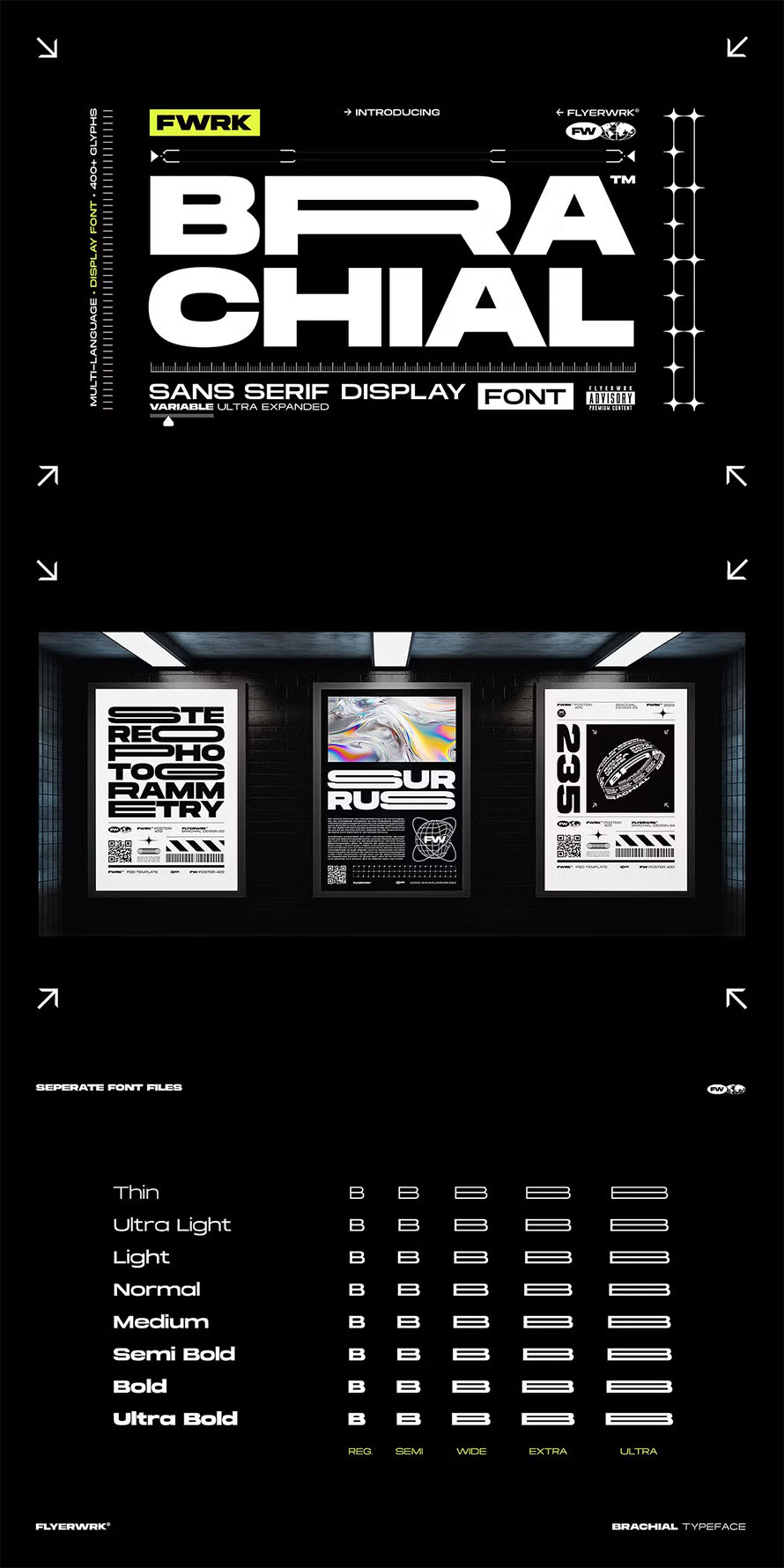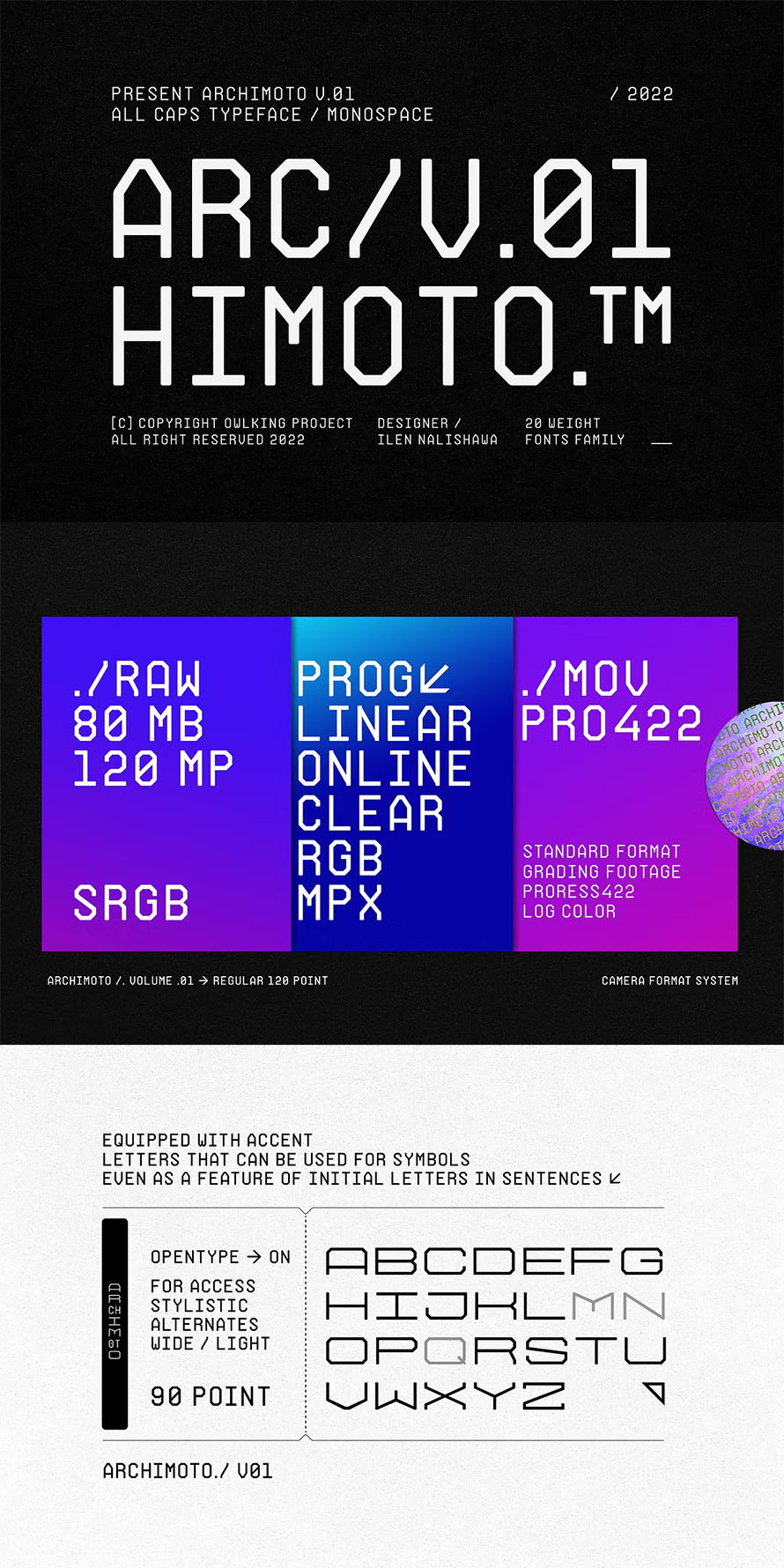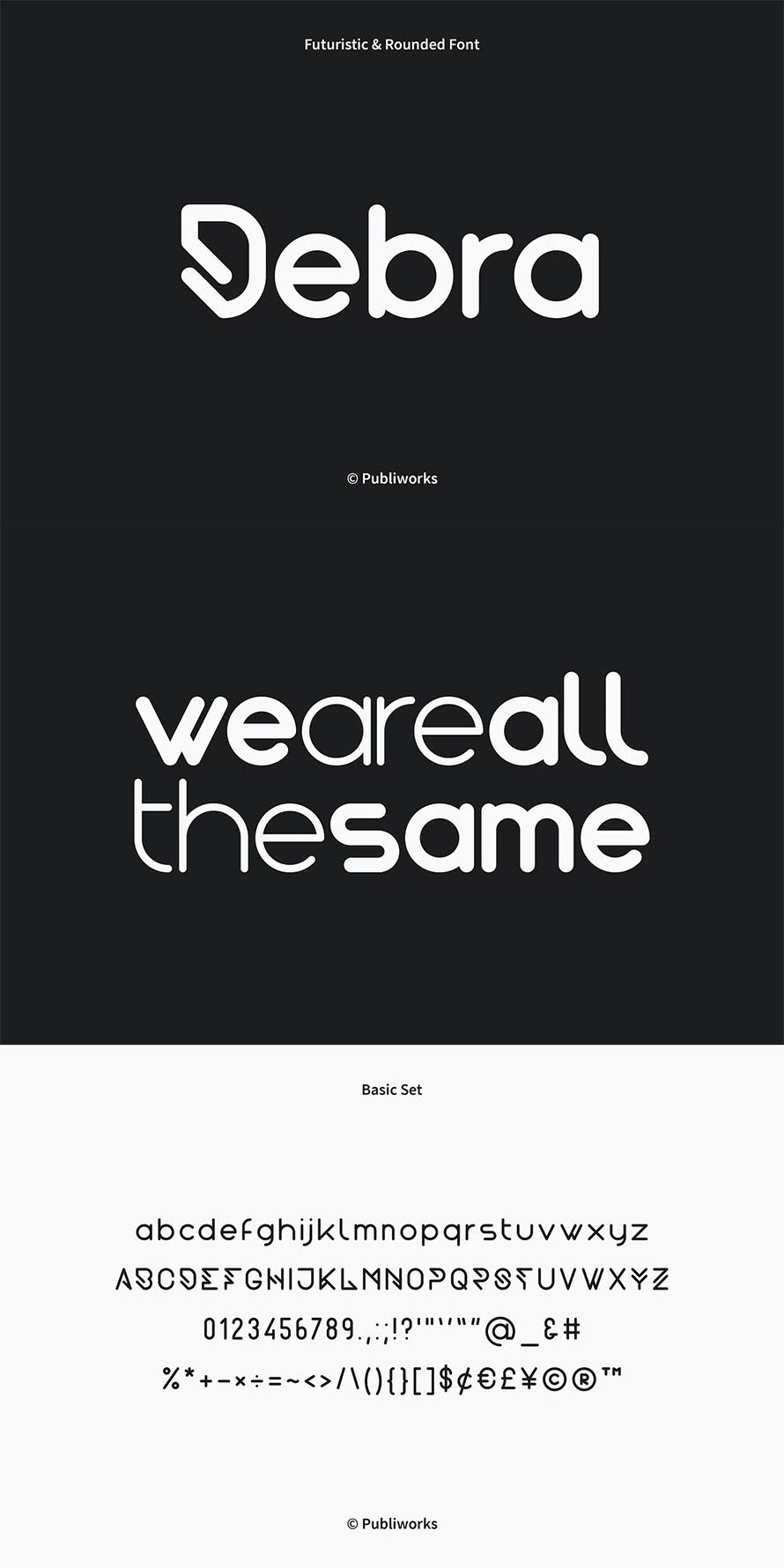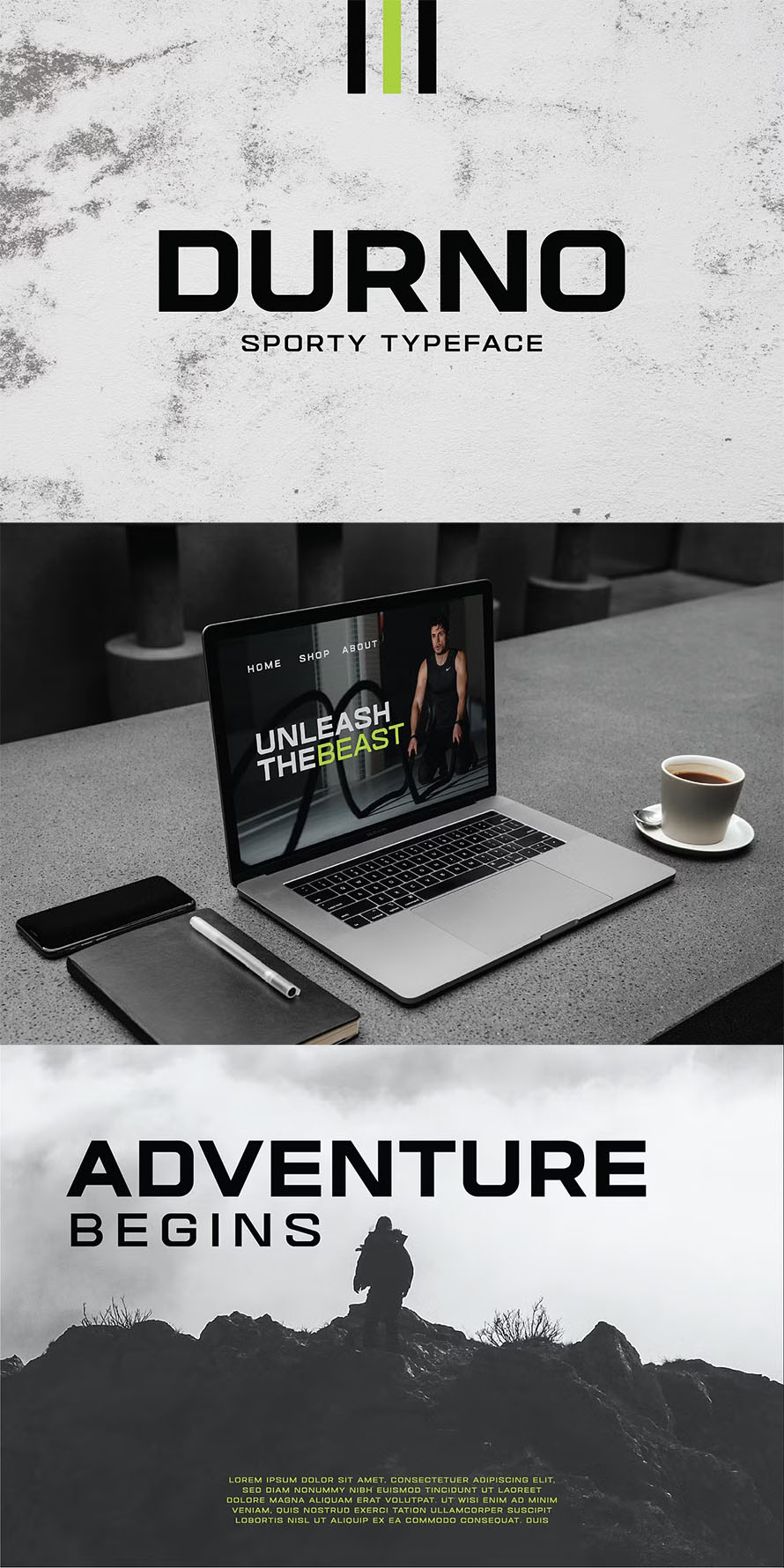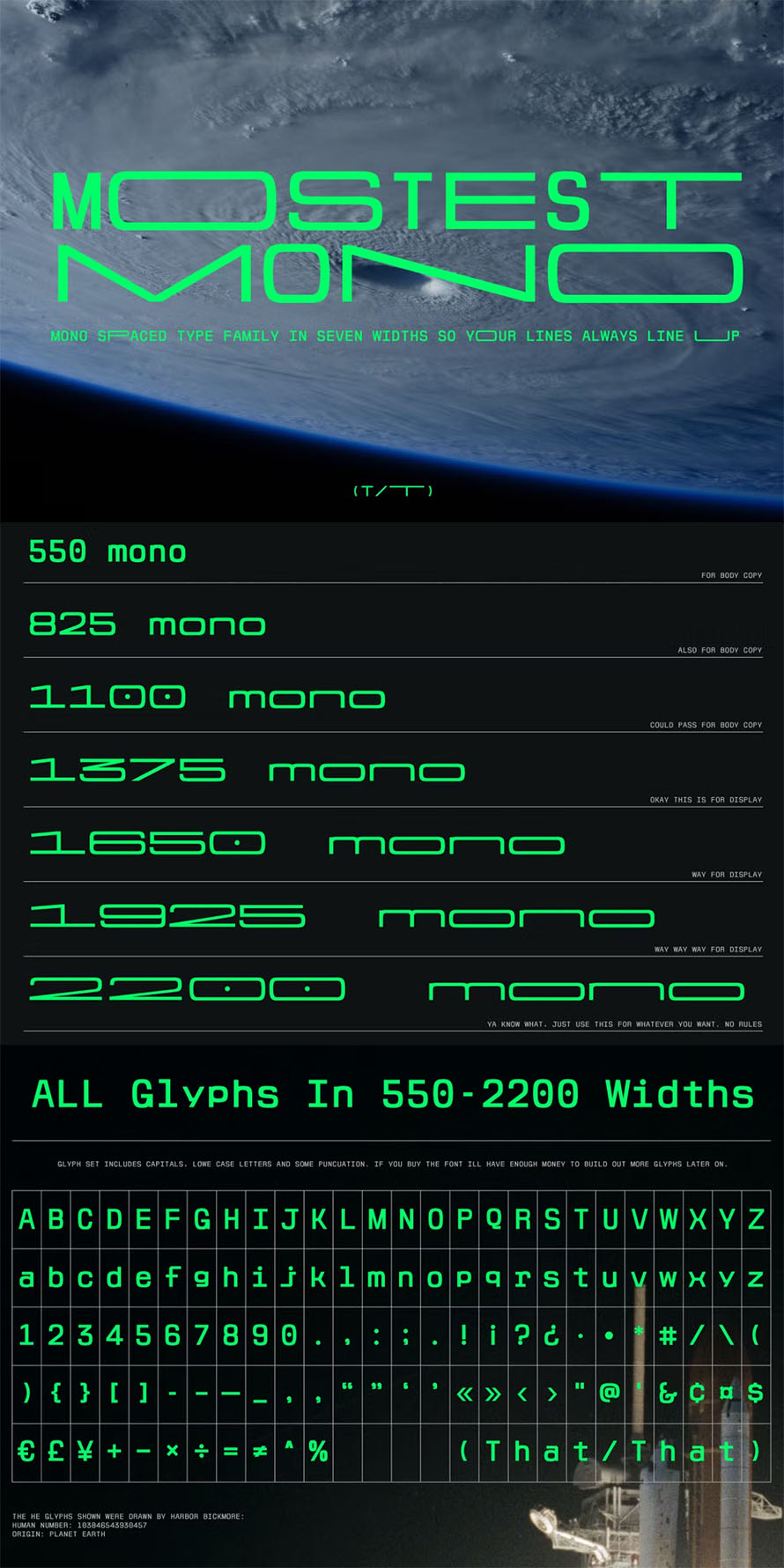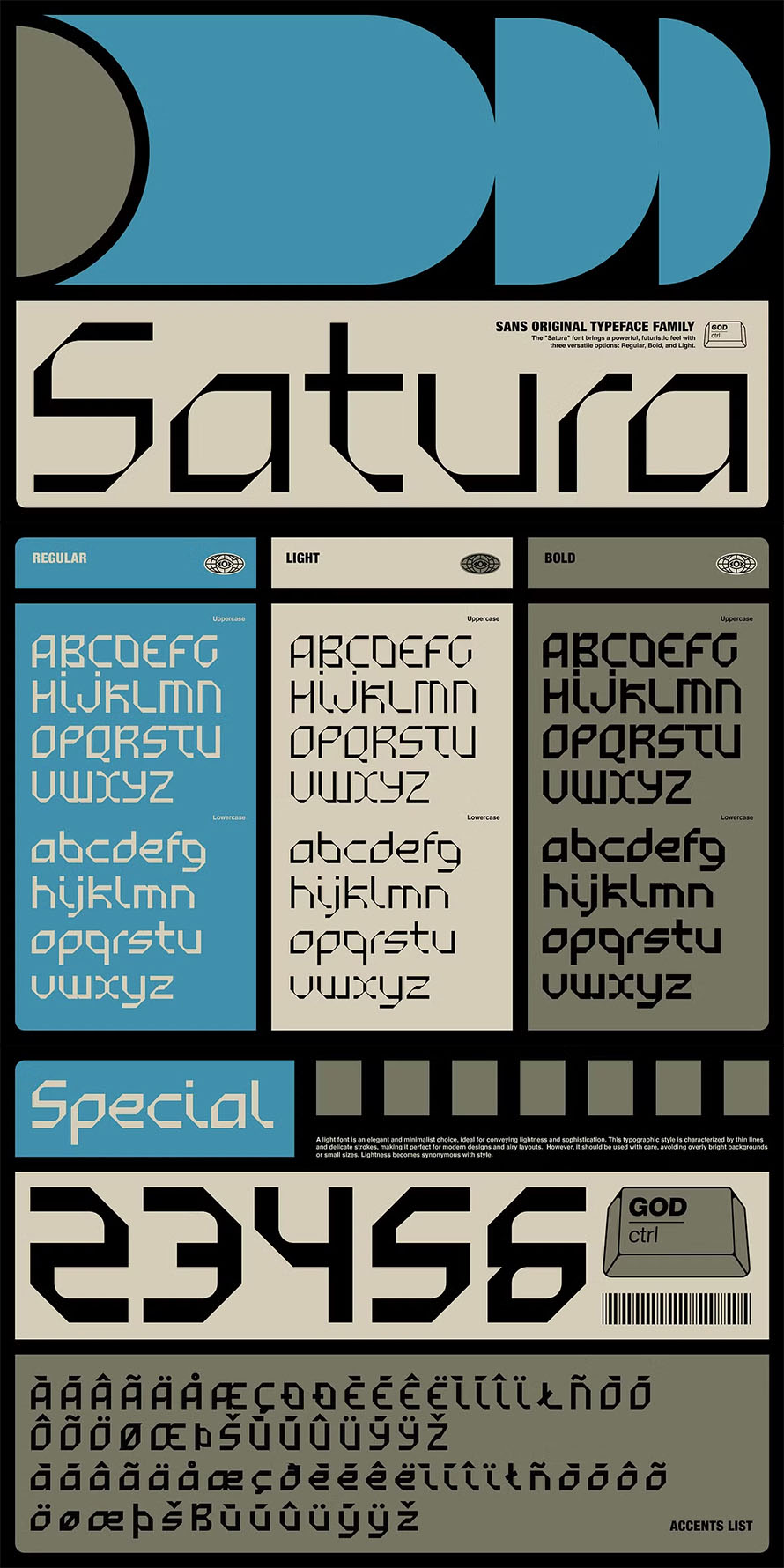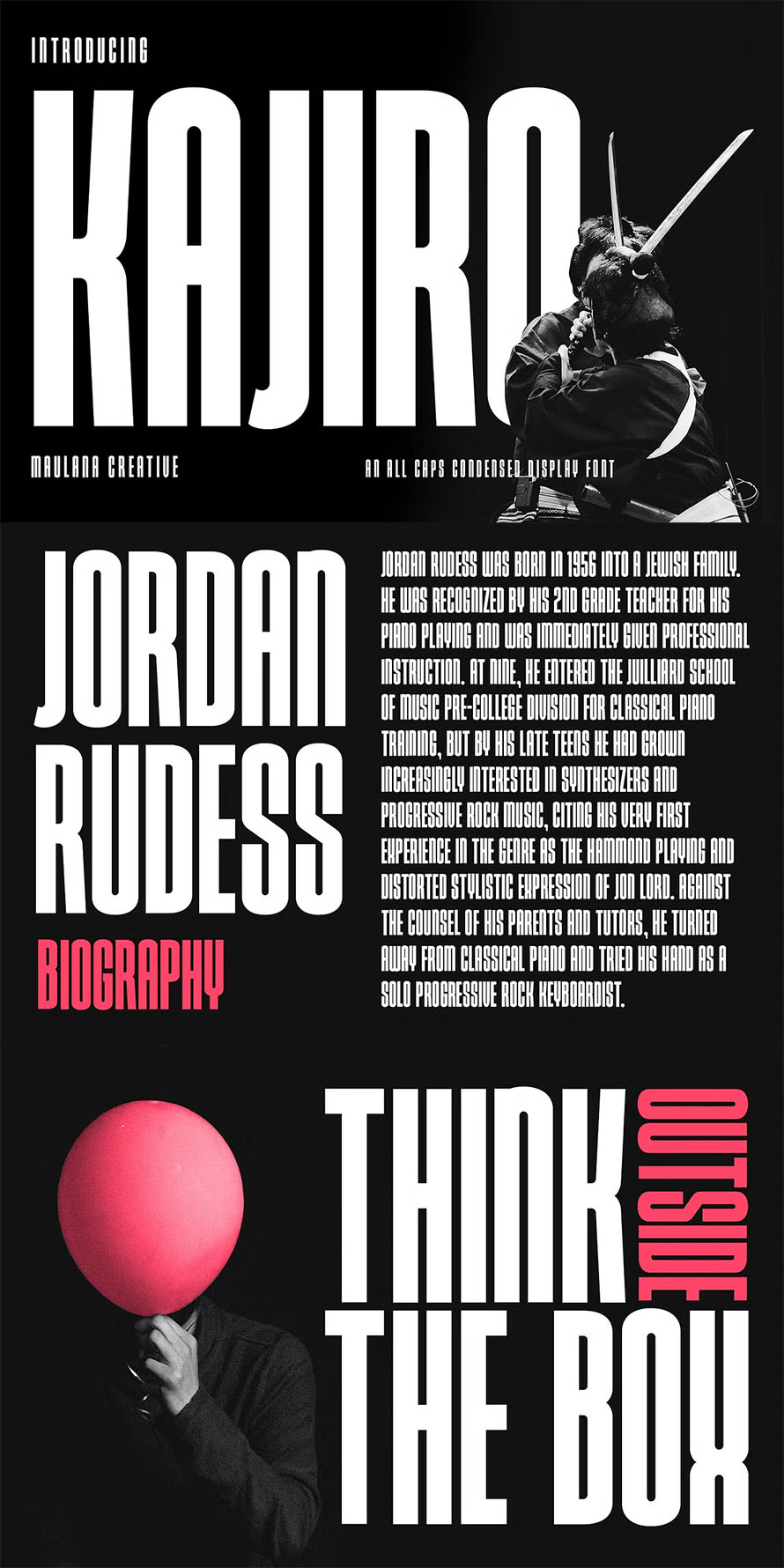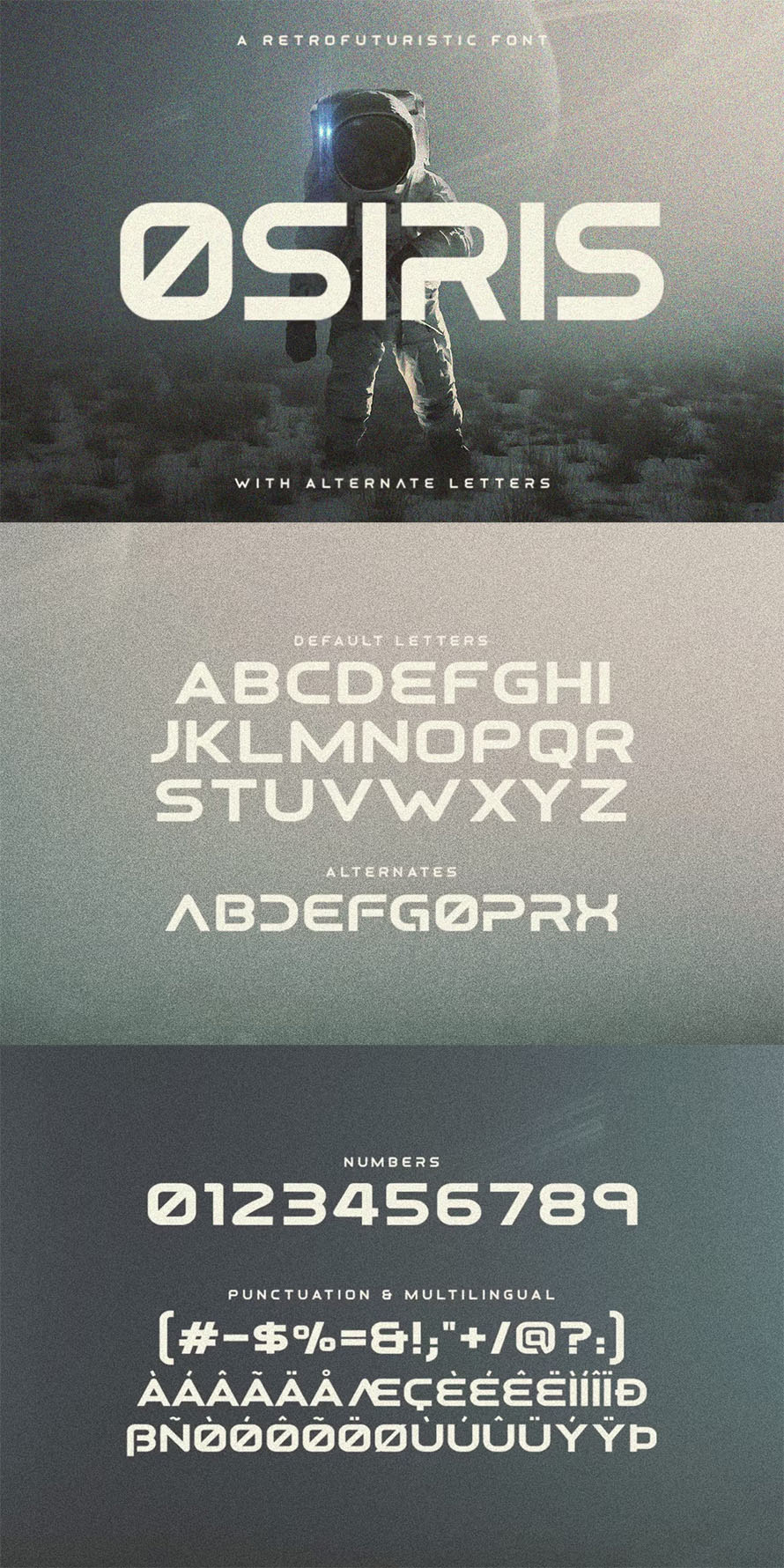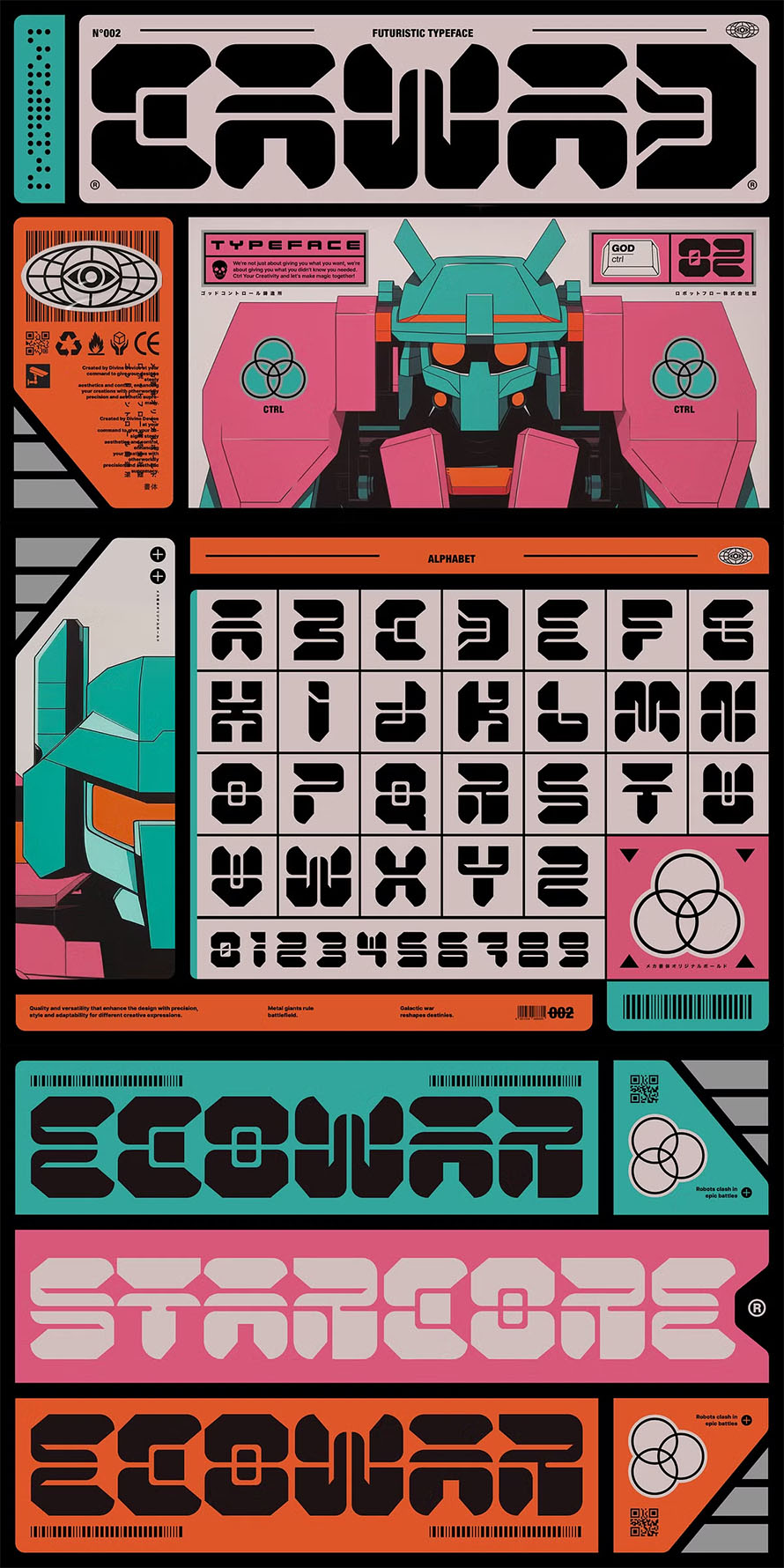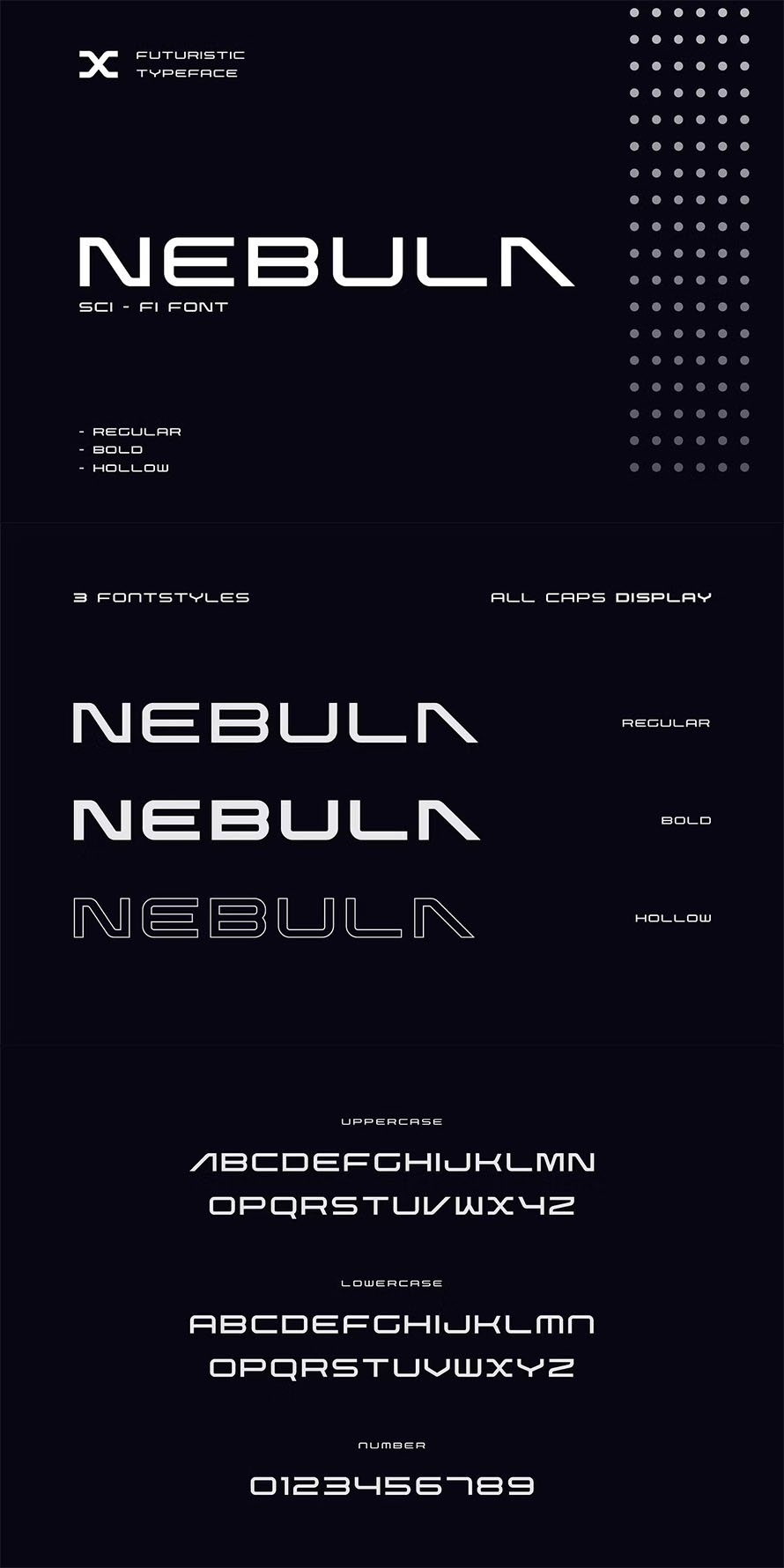
Modern stylish futuristic fonts bring a sharp, clean, and forward-looking feel to your projects. Whether you’re designing a tech logo, a UI mockup, or a gaming title screen, the right typeface can make your work look modern and purposeful.
So how do you pick a futuristic font that works? Start by focusing on clarity. Many futuristic fonts use geometric shapes and simplified forms. These create a sleek style but can sometimes affect readability. Choose fonts that stay readable, especially at smaller sizes.
Ask yourself—what emotion do you want the type to convey? Some fonts feel mechanical, while others have a more digital or sci-fi tone. Match the font to your content. A font that works for a tech brand might not fit a cyberpunk poster 😉
Stylish futuristic fonts shape the look of tomorrow with bold clarity and sleek precision.
You also need flexibility. Can the font handle headlines and body text? Does it offer multiple weights or alternate characters? The more versatile the font, the easier it is to use across platforms—print, web, or mobile.
The modern futuristic fonts work well as poster fonts. They create strong, modern lettering that grabs attention. Their bold shapes and sharp lines make any lettering poster look stylish, appealing, and visually focused.
Nebulica Geometric Family Font
Nebulica is a experimental font that seamlessly blends geometric and monospace typeface elements, resulting in a distinctly modern aesthetic. Inspired by contemporary urban design trends, Nebulica stands out with its unique features, including inktraps and slanted stems, ensuring consistency and legibility across various design projects. Variable font format available to give lots of options and access to unique type looks.
Brachial Ultra Wide Font
Awaken your inner design maverick with Brachial, the ultra-wide geometric sans-serif typeface that boldly dares to break the mold. Crafted to dominate the creative scene, Brachial is the ultimate tool for artists seeking the extraordinary.
Archimoto Font
Responded to the design of working drawing techniques in the world of architecture and letters on old stuff photography lens bodies, archimoto is designed with a more modern form, a little touch of detail in the corner area is so smooth that it aims to provide comfort to the eyes, by bringing 20 sizes including italic archimoto can be used more freely and can be adjusted more extensive exploration of its use.
Archimoto can be used as headlines and body text, the level of readability that looks comfortable makes the arrangement of letters more beautiful.
Debra Futuristic Rounded Font
A futuristic font embodies sleek, cutting-edge aesthetics with sharp angles, smooth curves, and a high-tech feel. Often inspired by cyberpunk, sci-fi, or minimalism, these fonts convey innovation, digital advancement, and a forward-thinking mindset, perfect for technology, gaming, and branding.
Durno Bold Extended Sport Font
Durno is a modern futuristic font, that features wide and extended glyphs, this extended sport font is suitable for your projects like logo designs, social media posts, banners, posters, headers, etc.
Mostest Mono Font Family
Imagine a monospaced font so mono-spaced you can not even imagine it. That is Mostest Mono. Not only is every character the same width, but there are no descenders.
Mostest is a font family that comes in seven widths. It is designed so your lines of text can match up perfectly by simply changing the width of one or two characters. or you can go crazy for display text and have every character a different width.
Satura Display Typeface
Satura is the font your designs did not know they were begging for. Industrial, sharp, and just the right amount of edgy, this triple-weight powerhouse comes locked and loaded with everything you need.
Kajiro Sans Condensed Display Font
Kajiro is a fancy modern condensed all Caps sans serif font. With bold tall and sharp stroke, fun character with a bit of ligatures and alternates. To give you an extra creative work. Kajiro font support multilingual more than 100+ language.
This font is good for logo design, Social media, Movie Titles, Books Titles, a short text even a long text letter and good for your secondary text font with sans or serif. Make a stunning work with Kajiro font.
Osiris Futuristic Font
Osiris is a retrofuturistic font with alternate letters. It includes uppercase multilingual letters, numbers and punctuation. The font features both sharp edges and rounded corners and was inspired a bit by the NASA font.
Cawad Display Typeface
Now, we could bore you with all the technical stuff, but lets get real, but lets keep it real – it is not just a font, it is a whole new aesthetic packed into 44 characters. Each character is a masterpiece of futuristic, mecha-inspired goodness – perfect for grabbing attention and making your designs pop.
Modern futuristic fonts speak the language of tomorrow—bold, clean, and built for impact.